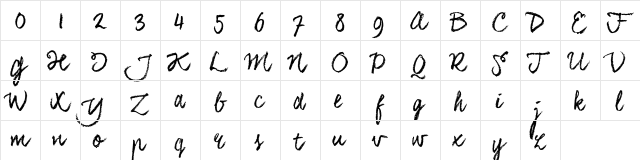
CoalhandLukeTRIAL Font Preview
| Foundry | JJW van der Ham / JOEBOB graphics |
| Designer | JJW van der Ham |
Design Context for CoalhandLukeTRIAL Typeface
CoalhandLukeTRIAL brings a calligraphic fluidity to the page — its connecting strokes and expressive curves give it an unmistakably human quality.
Font Pairing: Combine CoalhandLukeTRIAL with a simple geometric sans for maximum contrast — the tension between flowing curves and clean structure is a classic typographic pairing.
Pro Tip: Use CoalhandLukeTRIAL for short runs of text — names, titles, or taglines. Extended body copy in script faces tires the eye quickly.